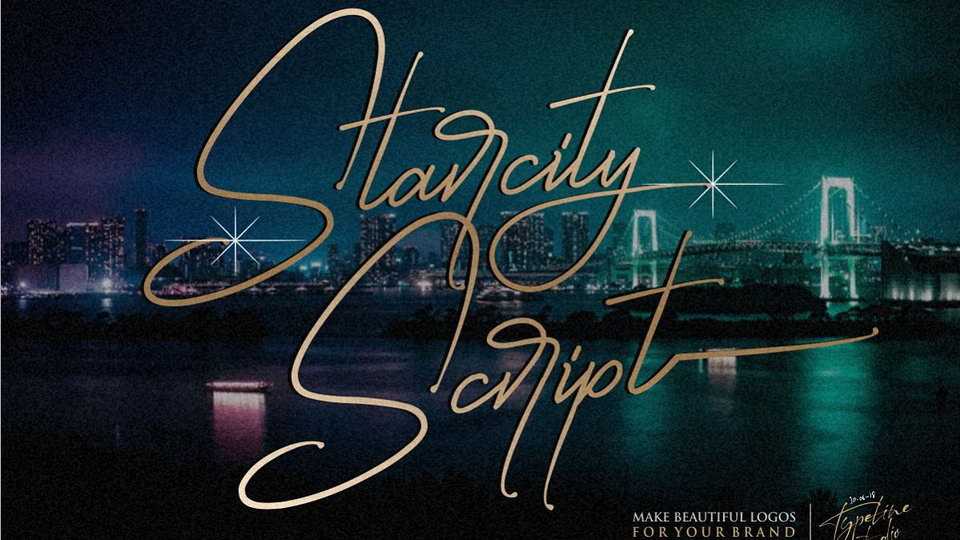
Download Starciry Script, a brilliant signature style font, made with a sense of luxury, unique and of course also elegant for creating logos and watermarks, for brands and photography.
Designer: Typeline Studio